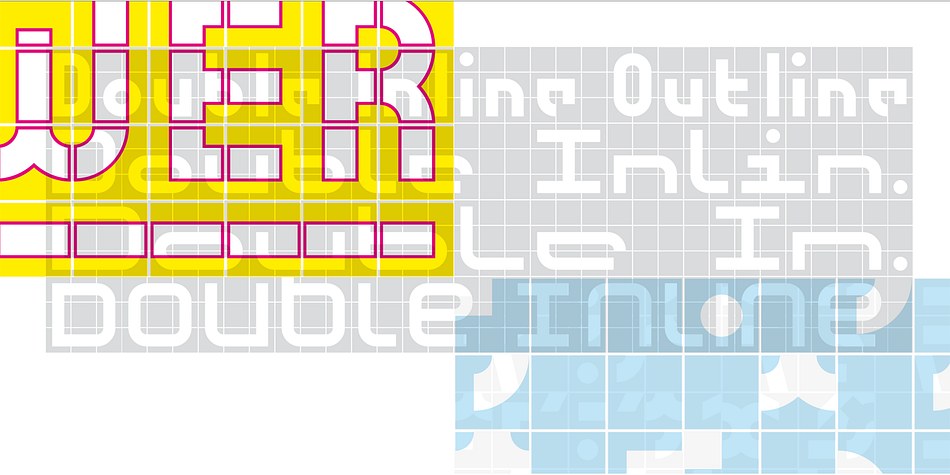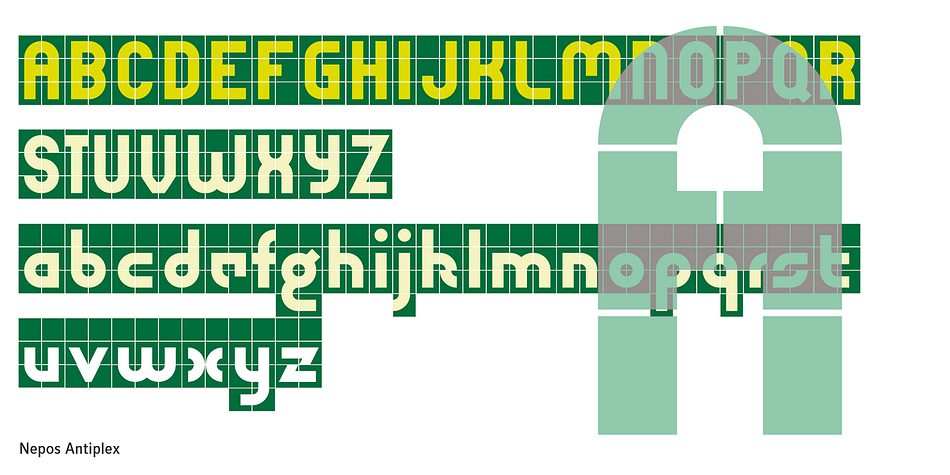
Nepos
Nepos is a dingbat, display and novelty font family. This typeface has twenty-two styles and was published by Astype.
Nepos is an experimental modular type kit consisting of ready-made typefaces and a set of special BUILD fonts to build your own letters and ornaments.
These BUILD fonts can be used on layers with different colors and overprinting for special effects.
Studends get excited often by these simple modular graphics, especially if they realise these kind of stuff was made long befor desktop publishing.
In Germany the Dresden Schriftguss AG offered these lead types in the early 1930s under the label NE & PO (Negativ+Positiv) and ATF in the USA under the name Alpha Blox.
Nepos is a a twenty-two font family.
Nepos features ten extra dingbat fonts.
Nepos is a twenty-two font, dingbat, display and novelty family by Astype.
Nepos features ten extra dingbat fonts.
Nepos is a dingbat, display and novelty font family.
This typeface has twenty-two styles  and was published by Astype.
Nepos is an experimental modular type kit consisting of ready-made typefaces and a set of special BUILD fonts to build your own letters and ornaments. These BUILD fonts can be used on layers with different colors and overprinting for special effects.
Studends get excited often by these simple modular graphics, especially if they realise these kind of stuff was made long befor desktop publishing. In Germany the Dresden Schriftguss AG offered these lead types in the early 1930s under the label NE & PO (Negativ+Positiv) and ATF in the USA under the name Alpha Blox.